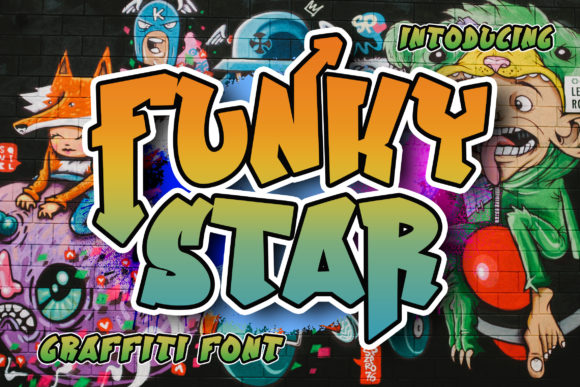
Prepare yourself to be mesmerized by Funky Star, a display font that exudes a captivating vintage charm and an undeniable boldness. Its thick, eye-catching letters will make your creations stand out from the crowd, adding an instant touch of retro flair. Unleash your creativity and let your imagination soar as you explore the endless possibilities that Funky Star holds.
Crafted with meticulous attention to detail, Funky Star is more than just a font—it's a gateway to a world of vintage allure. Adorn your designs with its captivating characters and evoke a sense of nostalgia that will resonate with your audience. Transform your logos, posters, and social media posts into timeless masterpieces that capture the essence of the past.
But Funky Star is more than just a pretty face. Its PUA encoding grants you effortless access to a treasure trove of glyphs and swashes, empowering you to customize your creations to perfection. From elegant flourishes to playful ornaments, the possibilities are limitless.
With Funky Star at your fingertips, you'll discover a font that's not just versatile—it's a true chameleon, adapting effortlessly to a myriad of design styles. Whether you're crafting a captivating logo, a nostalgic poster, or a social media post that demands attention, Funky Star will rise to the occasion, adding an unforgettable touch of vintage charm.
Don't settle for ordinary fonts that fade into the background. Embrace the extraordinary with Funky Star, a font that will ignite your creativity and transport your designs to a realm of timeless appeal. Let its bold letters and vintage allure captivate your audience, leaving an unforgettable impression that will linger in their minds long after they encounter your creations.